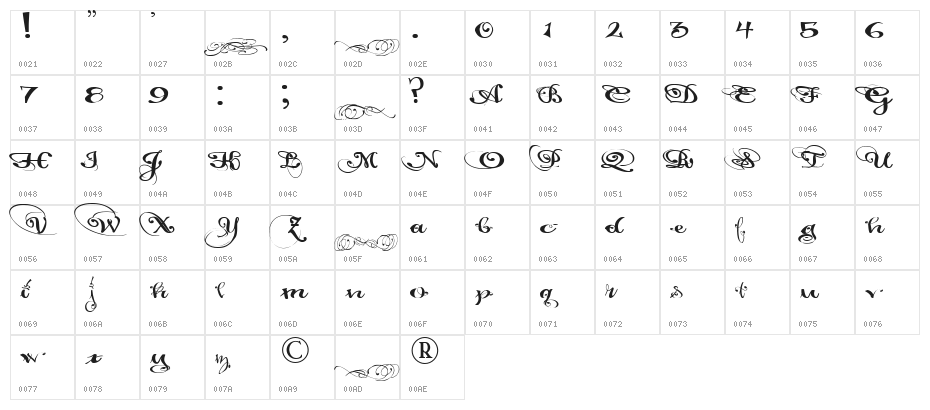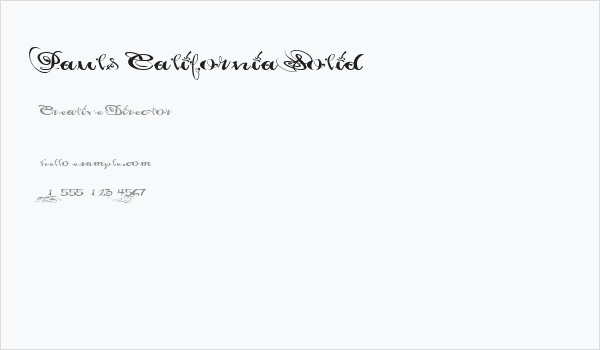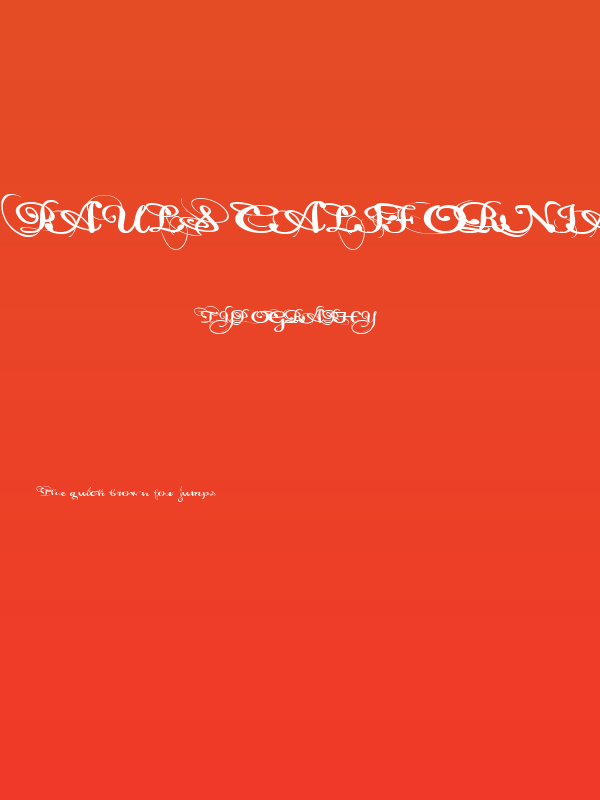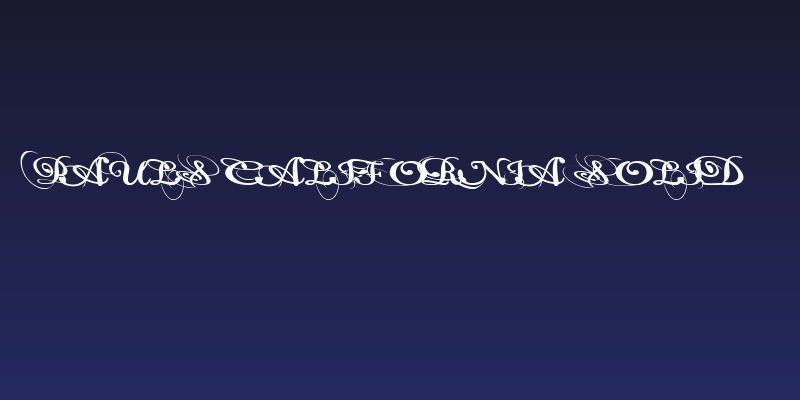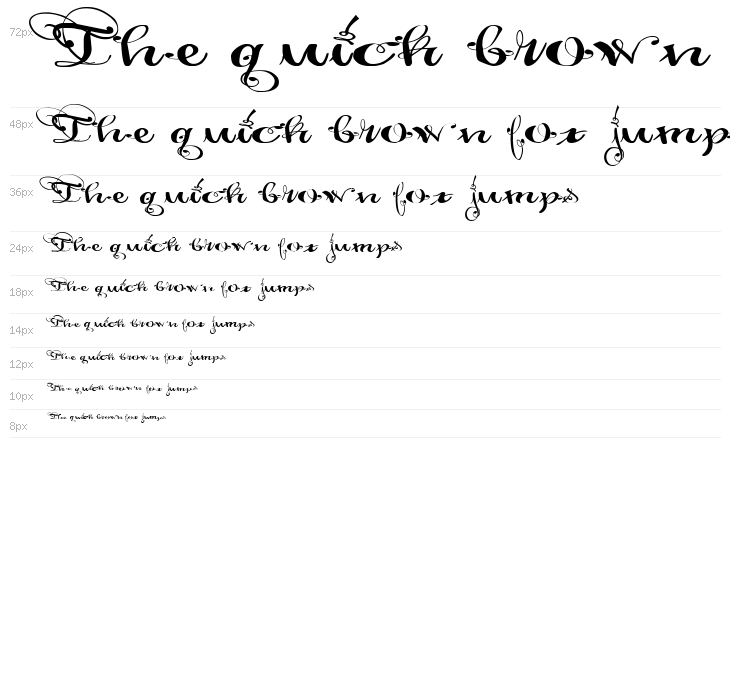
Pauls California Solid Font
Pauls California Solid Description
This font is an elaborate and decorative script with a strong calligraphic influence. The uppercase letters are adorned with intricate swirls and flourishes, creating a sense of elegance and sophistication. The lowercase letters maintain a fluid and connected style, enhancing the script's overall cohesiveness. The numerals are bold and slightly stylized, complementing the ornate nature of the alphabet. Special characters are equally embellished, ensuring consistency throughout the font. This typeface exudes a sense of luxury and artistic flair, making it suitable for projects that require a touch of refinement and creativity.
| Proposed Projects | Ideal for wedding invitations, luxury branding, greeting cards, and artistic posters. |